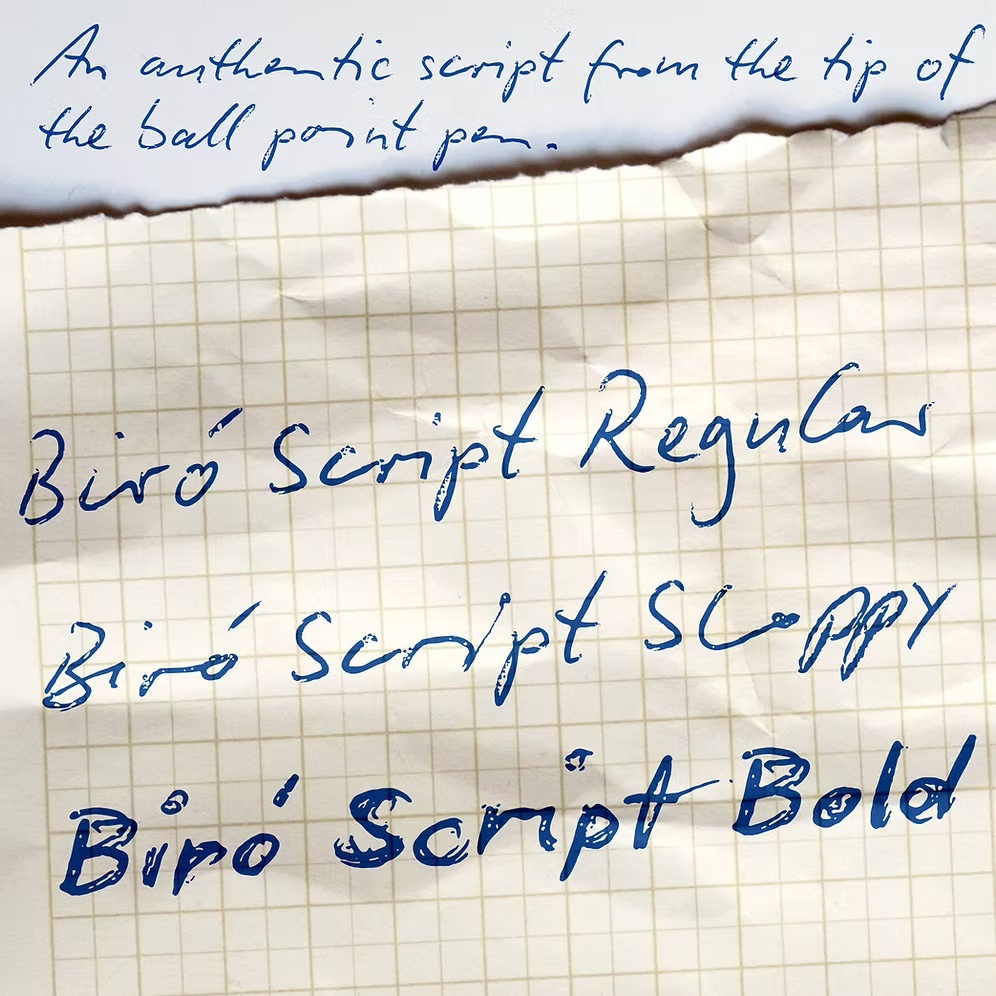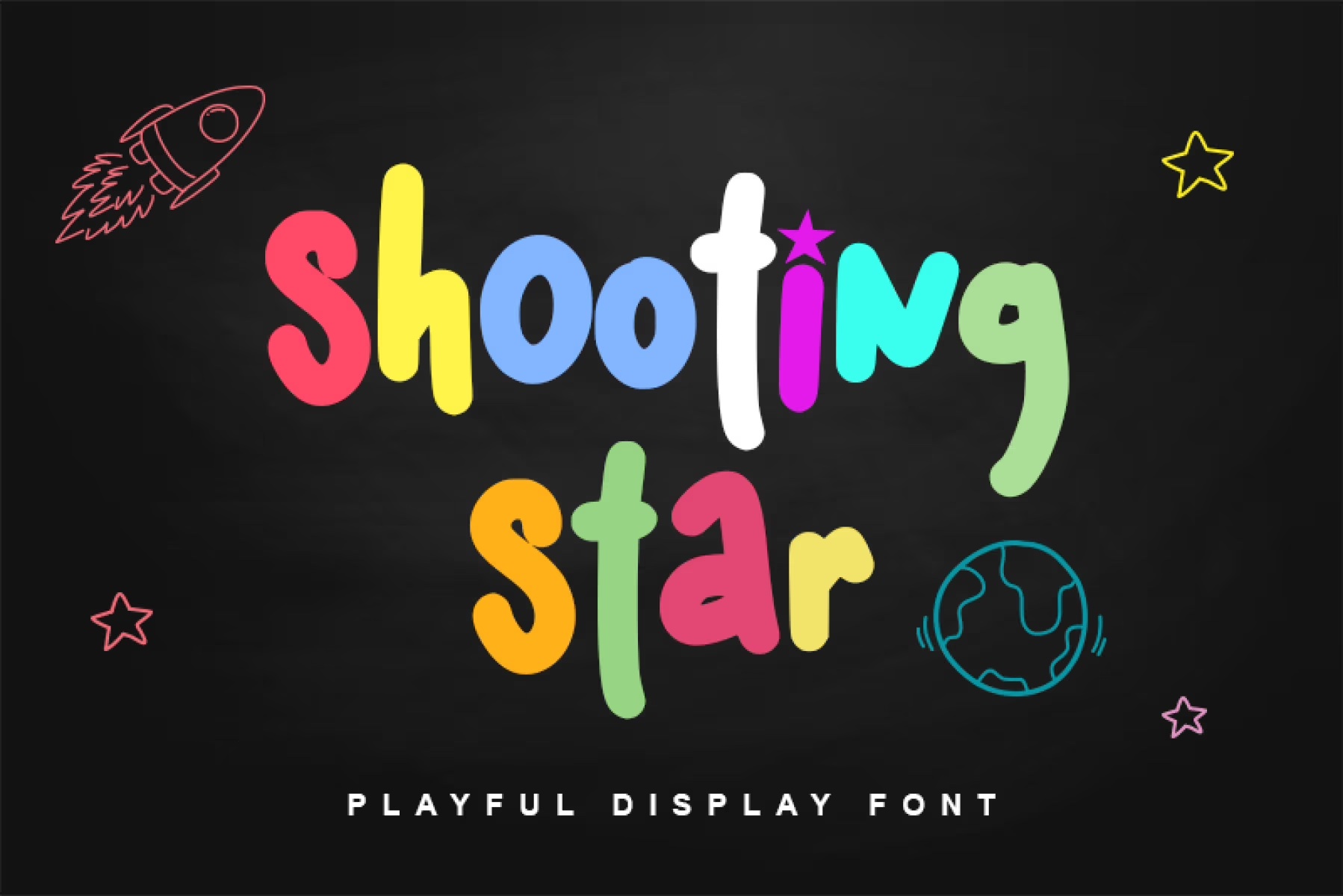
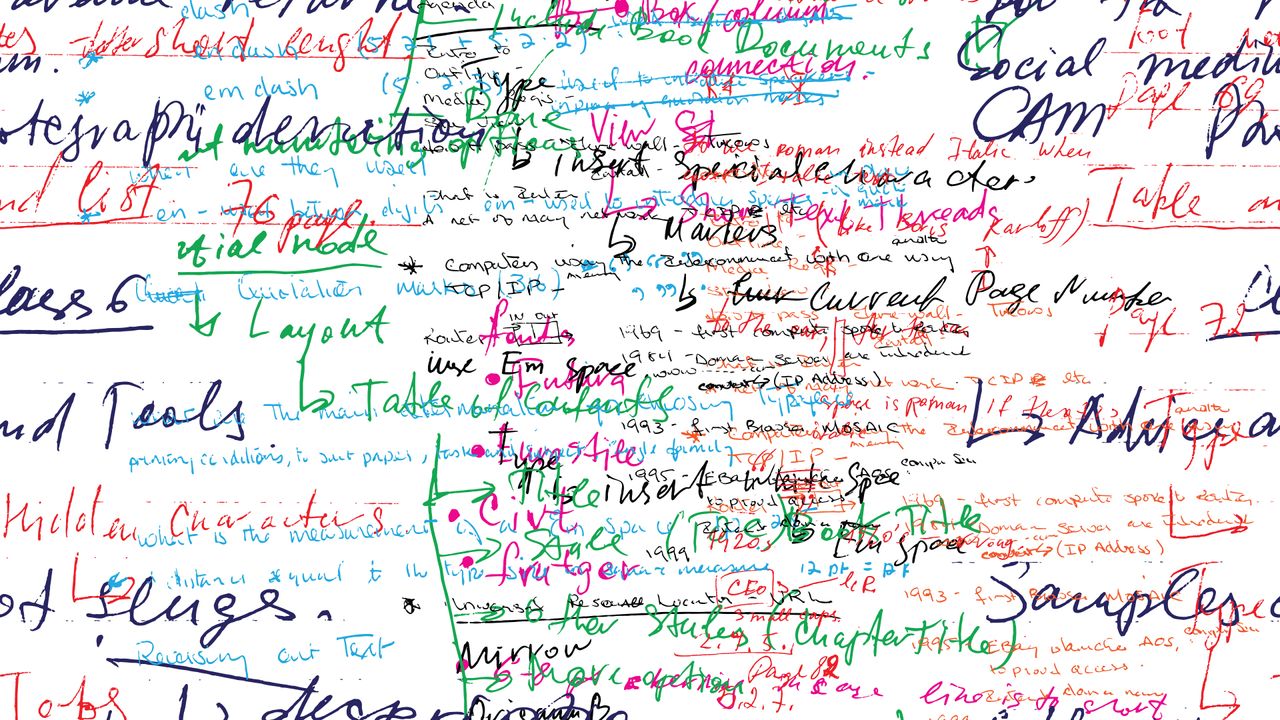
The best handwriting fonts are a perfect way to add a bespoke, human feel to your creative projects. Bridging the gap between technical precision and personable warmth, these diverse fonts carry an authenticity to captivate your audience and completely transform sterile copy.
Choosing handwritten fonts correctly is essential to capture the right tone, whether you're looking for swooping script fonts for wedding invites or casual scrawl for poster design. To bring you some inspiration, we've compiled our top handwriting font picks to help you find your perfect match. Once you've selected your typeface of choice, take a look at our guide to font pairings to create a harmonious look.